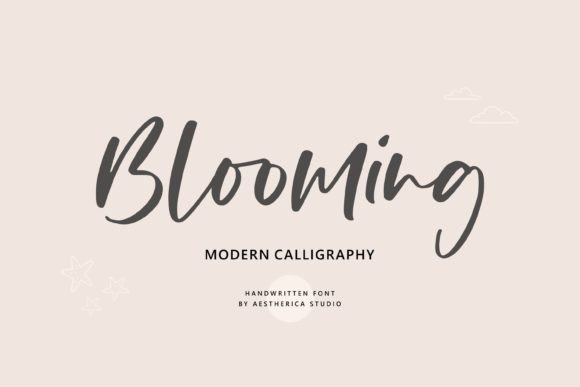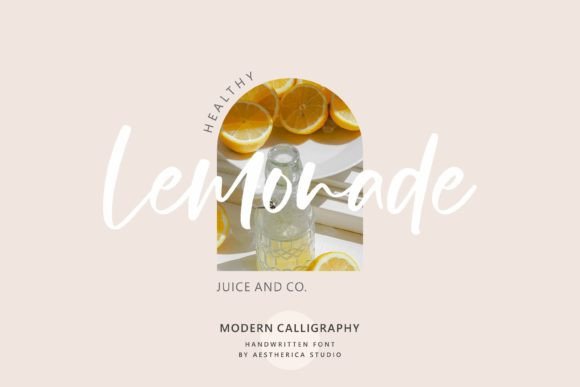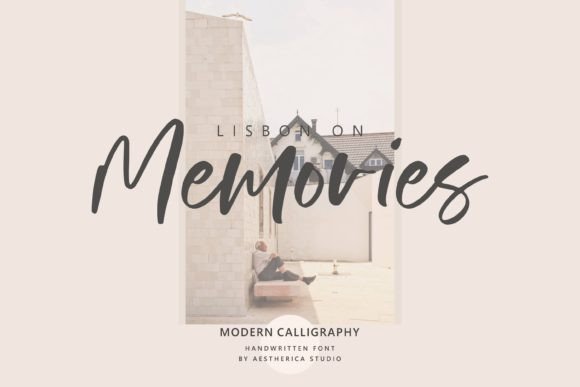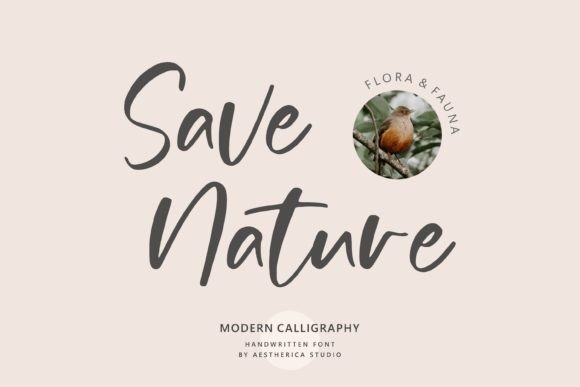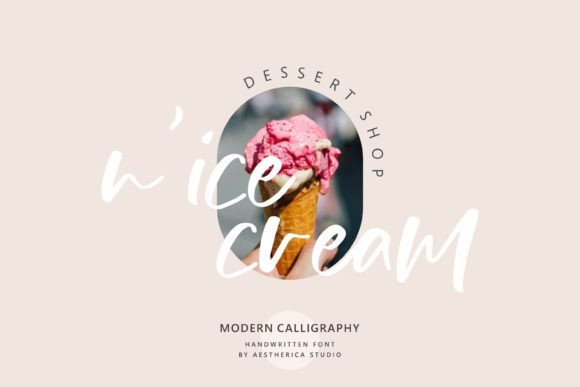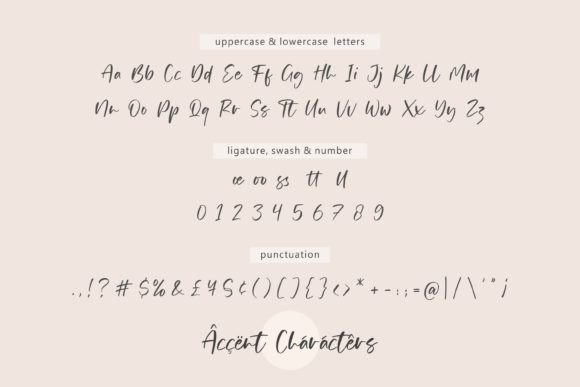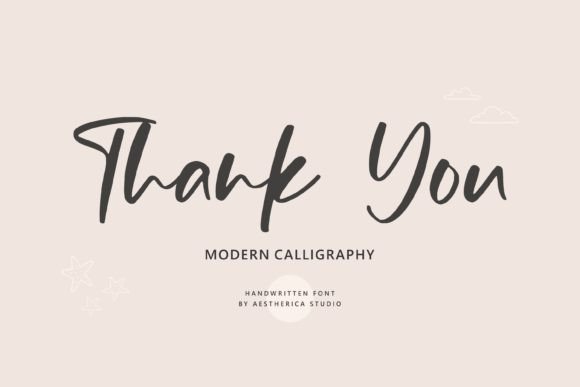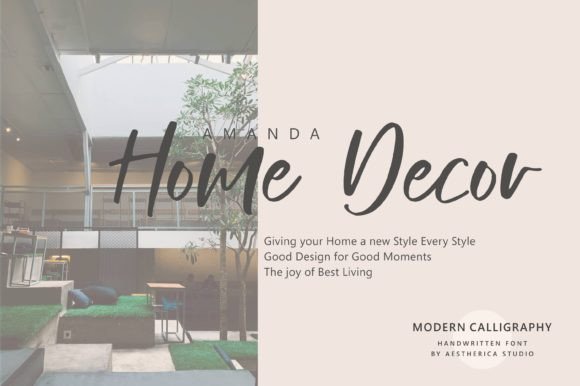
Blooming Font
About Blooming Font
“Blooming” is a modern calligraphy font that brings an elegant and stylish touch to a variety of design projects. Its contemporary and flowing script makes it a versatile choice for branding, logos, wedding designs, social media posts, advertisements, product packaging, labels, photography, watermarks, invitations, stationery, and any project that requires a sophisticated handwritten aesthetic.
The modern and calligraphic nature of Blooming adds a touch of class and timeless beauty to your designs. It is well-suited for projects that demand a balance between modernity and elegance, making it an ideal choice for creating a strong visual impact.
In branding projects, Blooming can serve as a signature font, adding a personalized and luxurious feel to your brand identity. Its flowing script brings a sense of fluidity and grace, creating a memorable and distinctive brand image.
For wedding designs, Blooming adds a romantic and sophisticated flair to invitations, place cards, and other materials. Its calligraphic strokes create a sense of craftsmanship and attention to detail, enhancing the overall beauty of the wedding stationery.
In the realm of social media, Blooming stands out, bringing an element of handcrafted charm to your posts. Whether you’re designing graphics for Instagram, Facebook, or Pinterest, this font adds a touch of elegance, making your content visually appealing and shareable.
For product packaging and labels, Blooming lends a premium and artistic quality. Its modern calligraphy style elevates the perception of the product, making it suitable for a wide range of items, from cosmetics to gourmet goods.
Photographers can use Blooming as a watermark to add a subtle and stylish signature to their images. The font’s delicate yet bold strokes ensure that the watermark complements the visual content without overpowering it.
In invitations and stationery, Blooming brings a sense of warmth and sophistication. Whether it’s for formal events or special occasions, the font’s modern calligraphy adds a touch of personalization and elegance.
In summary, Blooming is a versatile modern calligraphy font that enhances the visual appeal of your designs across various projects. Its elegant and flowing script makes it a go-to choice for those seeking a sophisticated and handcrafted aesthetic in branding, wedding designs, social media, product packaging, photography, invitations, and more.